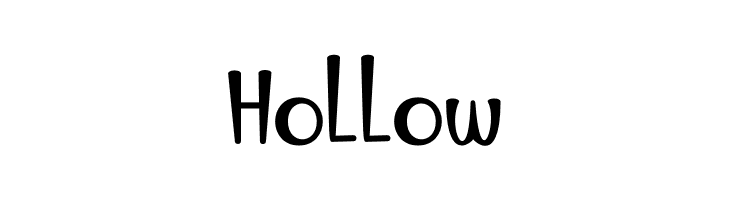
A playful, hand-drawn font with bold, rounded characters and a whimsical style.
A bold, playful font with rounded, thick strokes and a hand-drawn feel.
A playful, handwritten font with bold, whimsical characters.